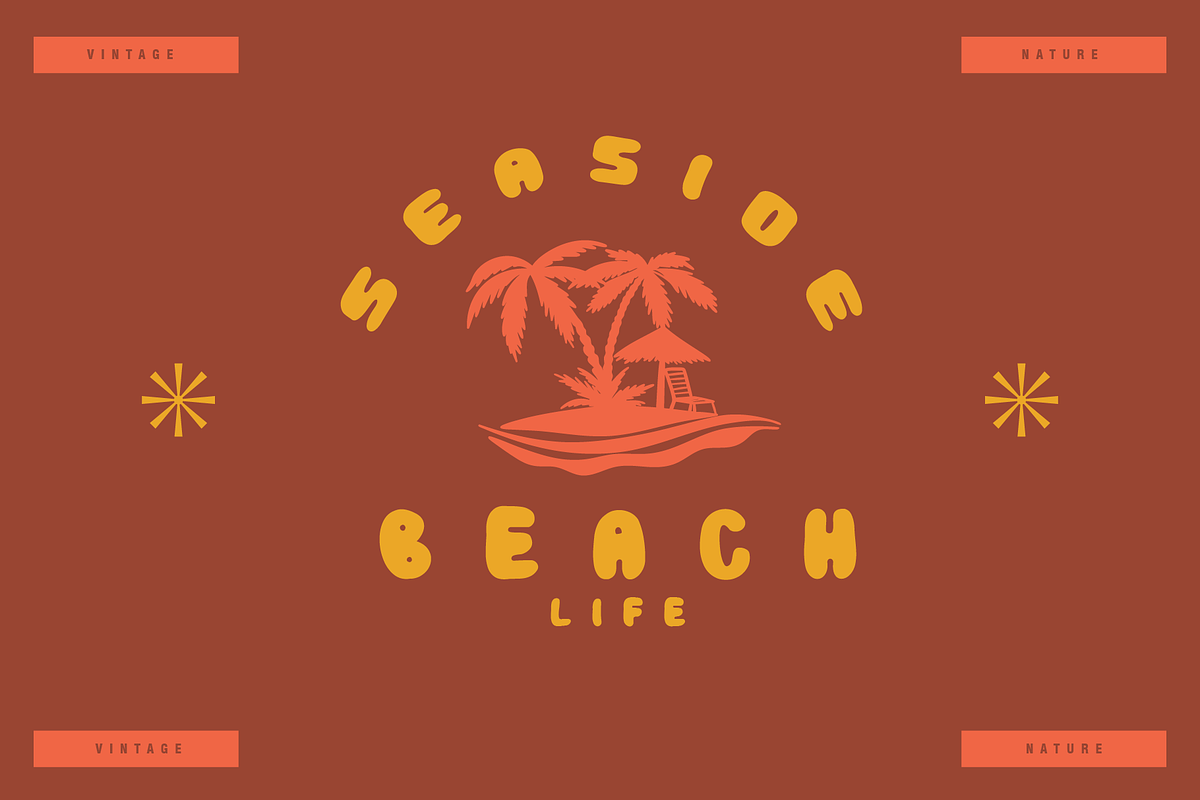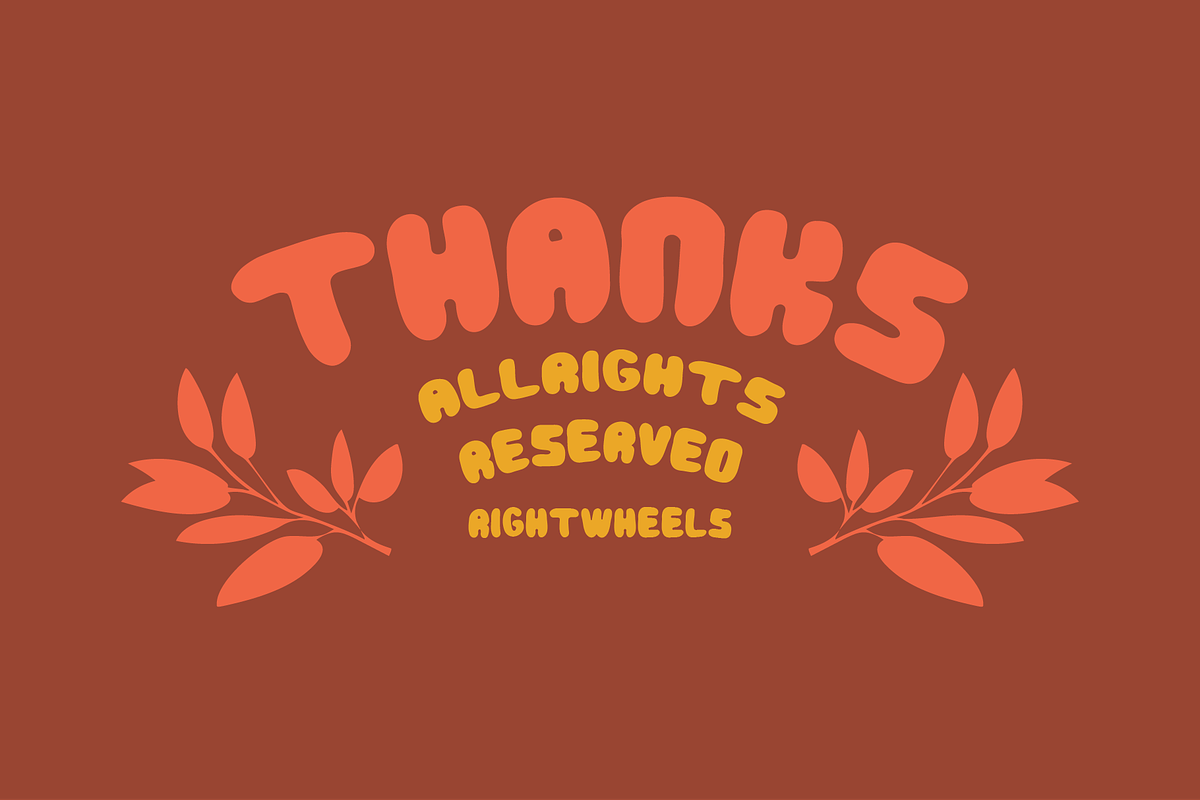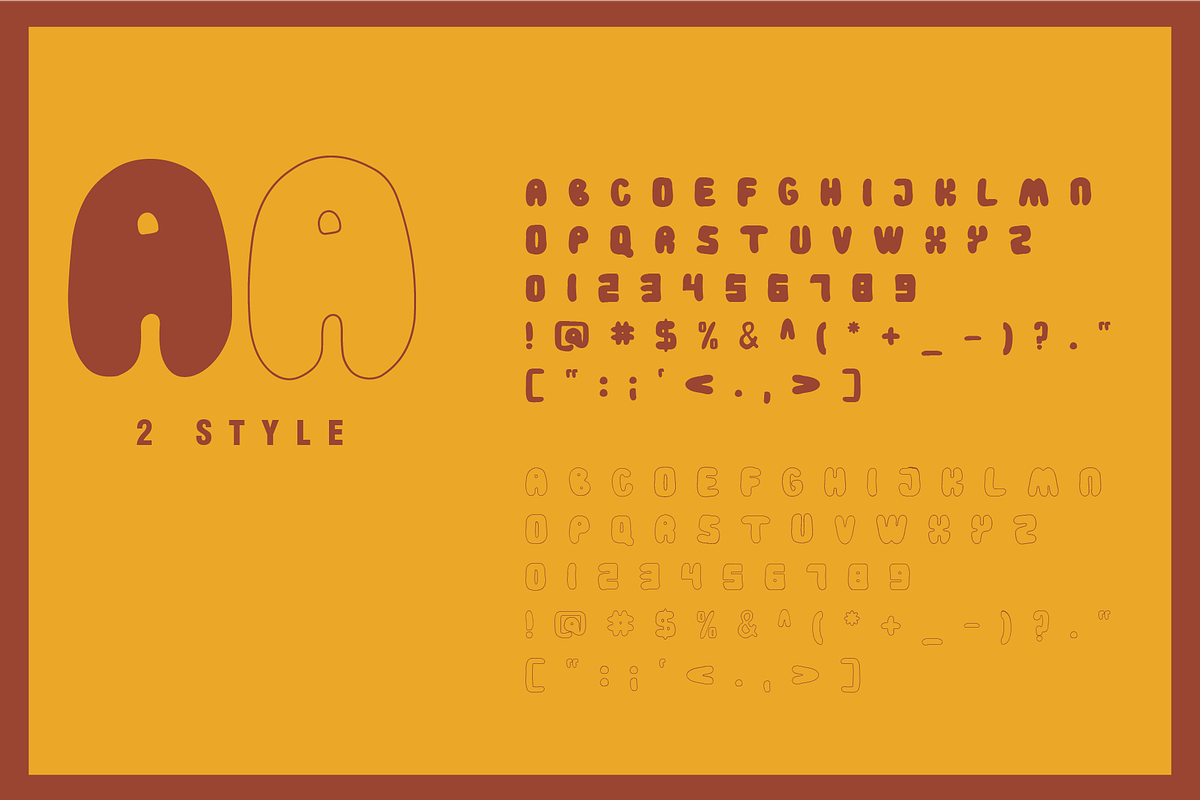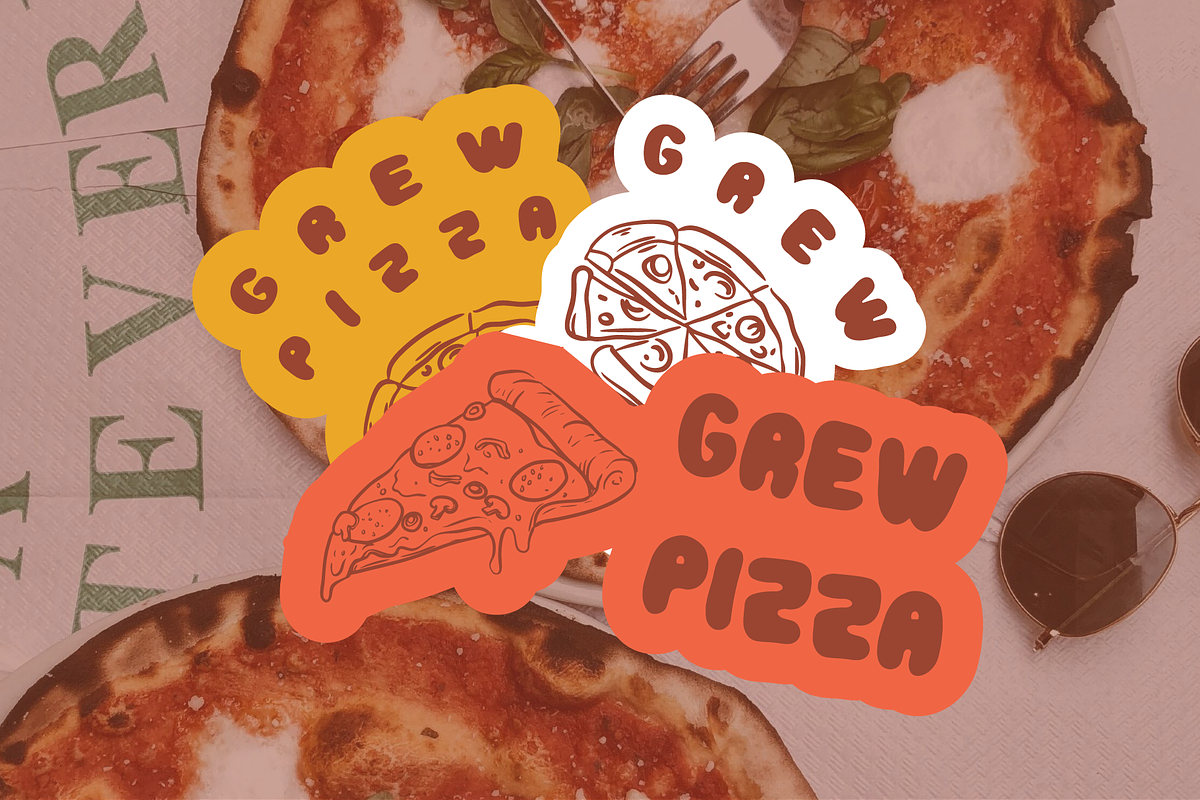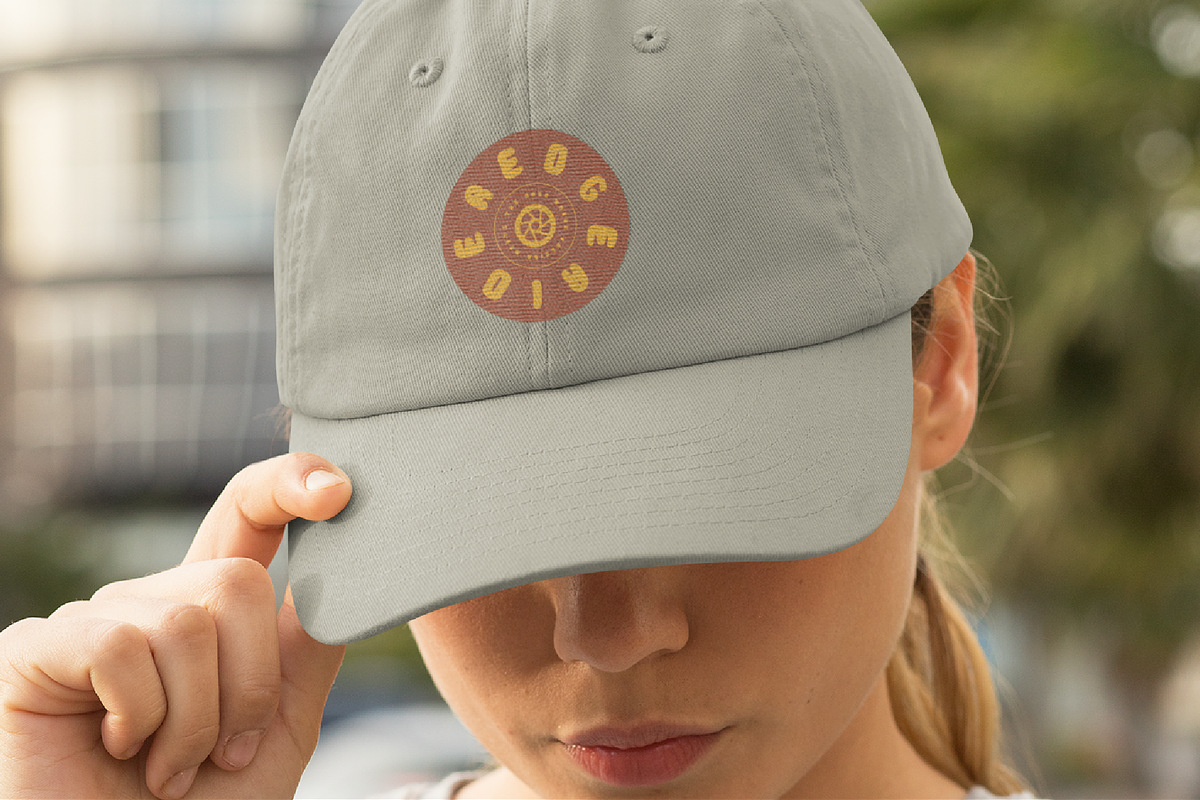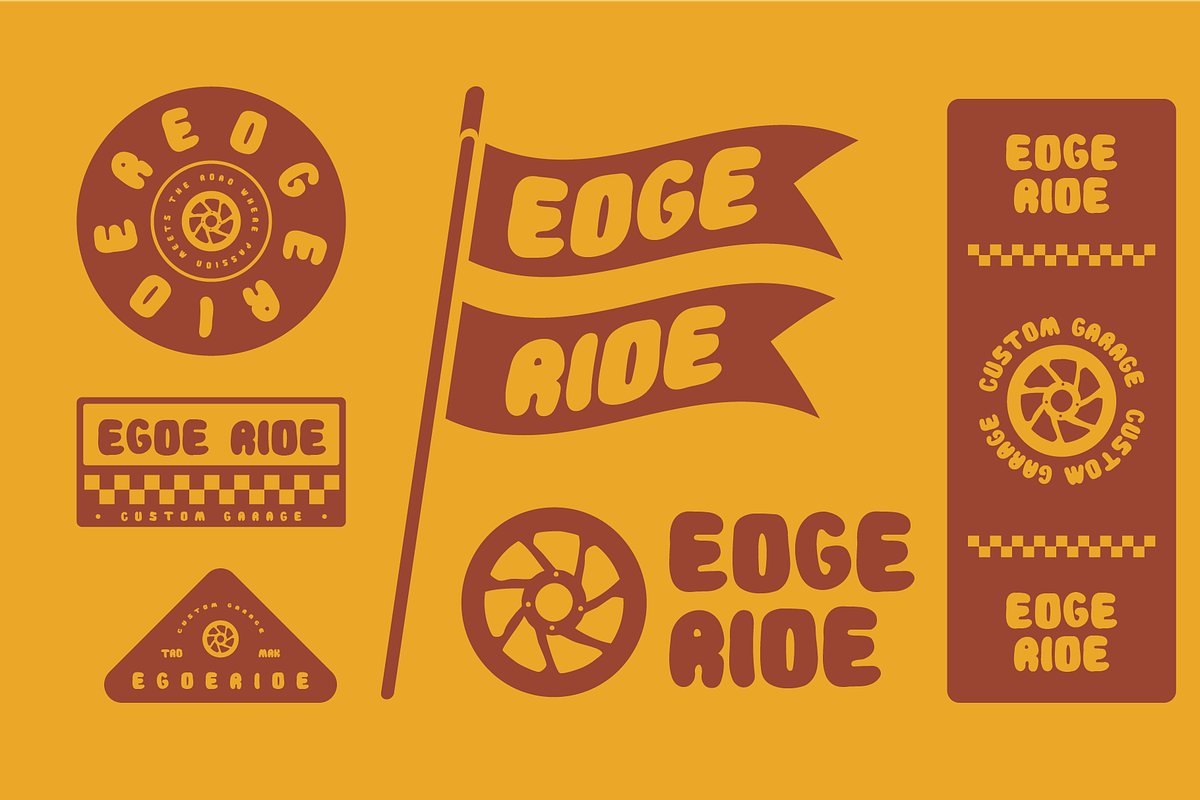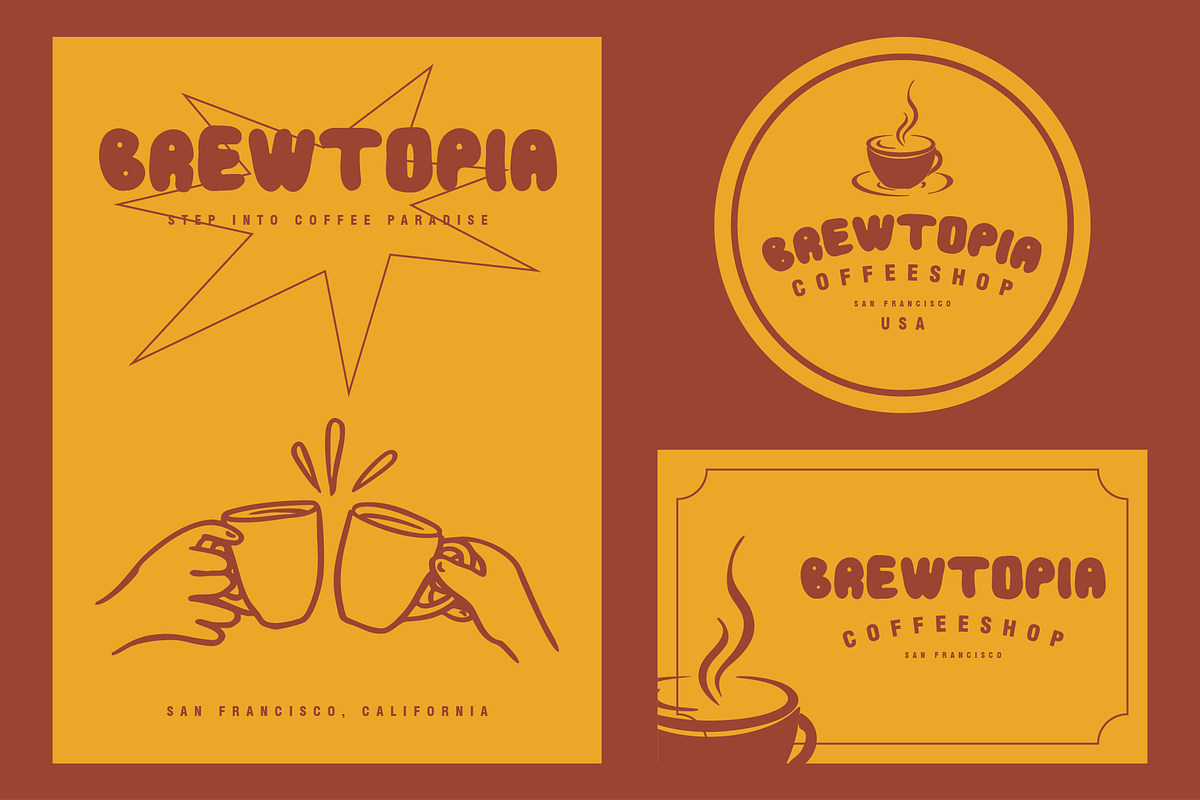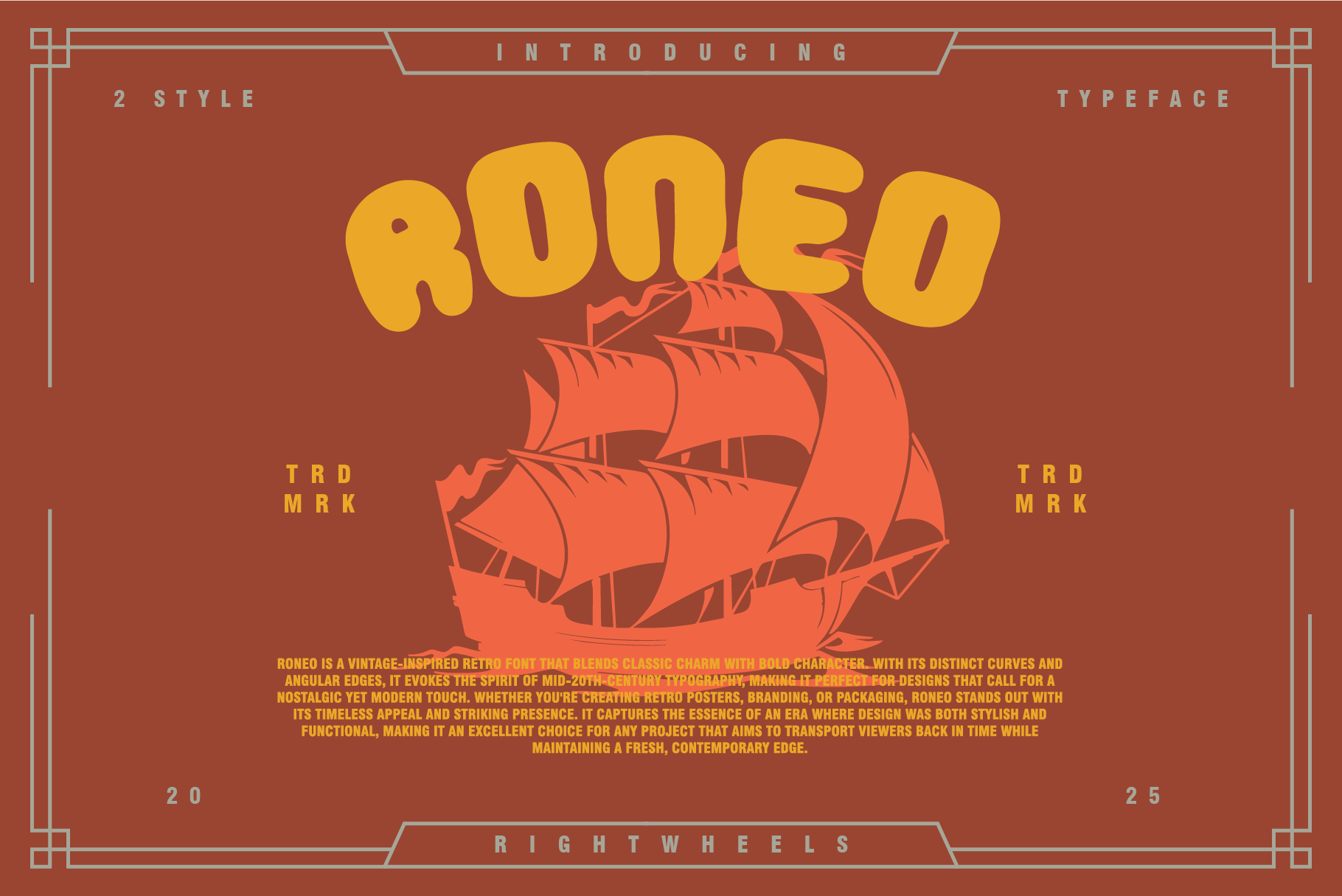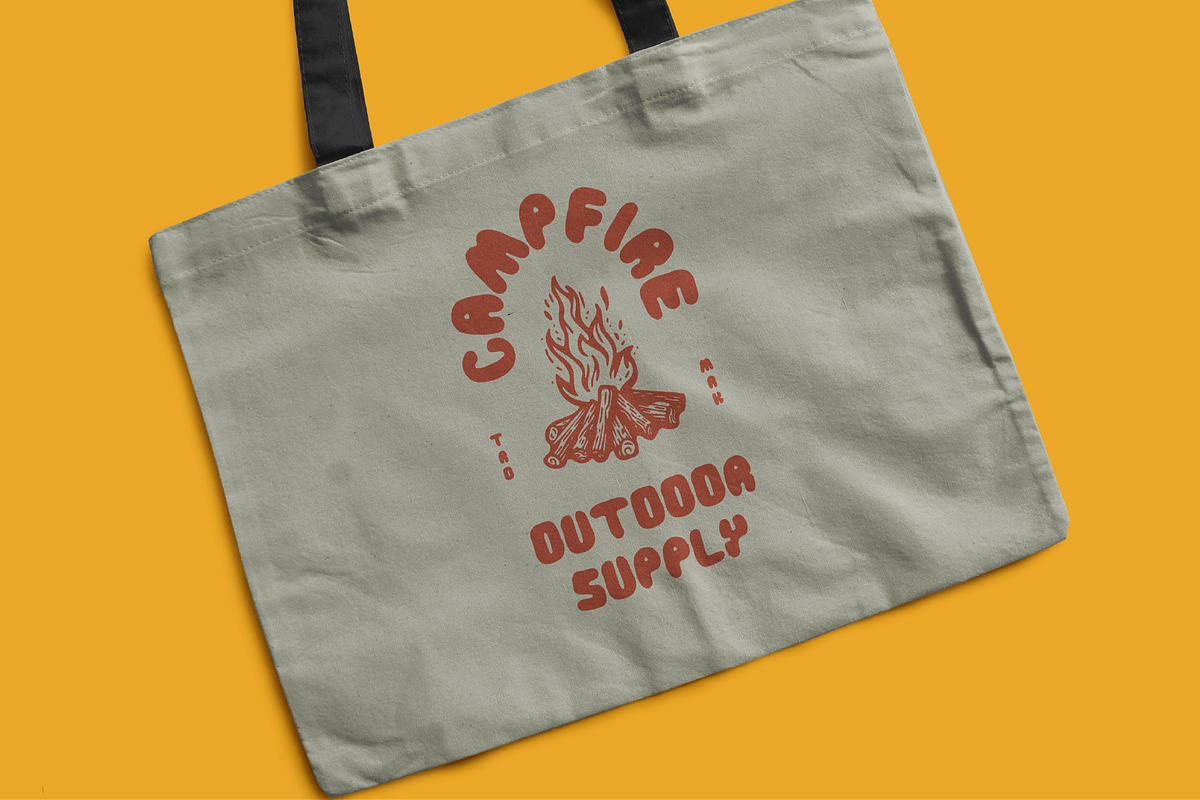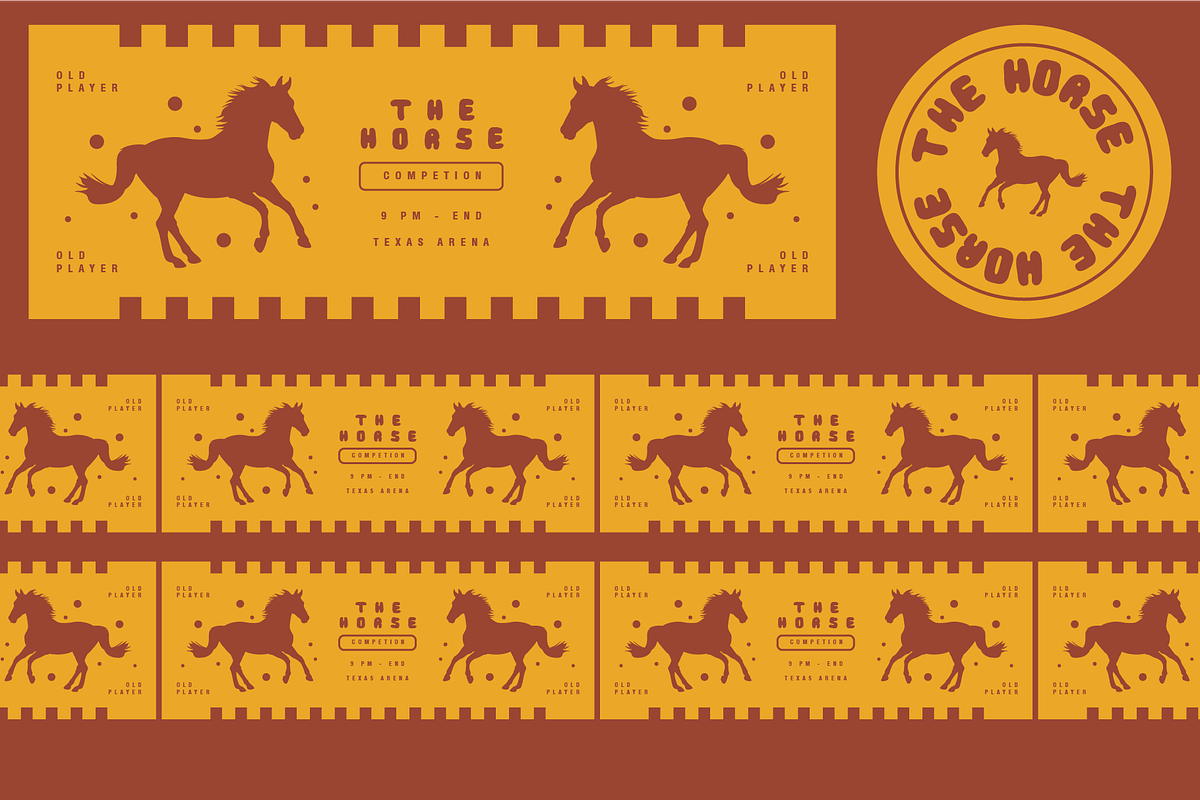
RONEO - Vintage Display Font
Roneo is a vintage-inspired retro font that blends classic charm with bold character. With its distinct curves and angular edges, it evokes the spirit of mid-20th-century typography, making it perfect for designs that call for a nostalgic yet modern touch. Whether you're creating retro posters, branding, or packaging, Roneo stands out with its timeless appeal and striking presence. It captures the essence of an era where design was both stylish and functional, making it an excellent choice for any project that aims to transport viewers back in time while maintaining a fresh, contemporary edge.